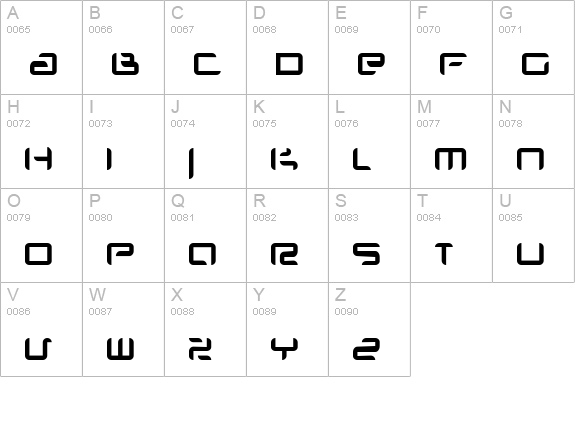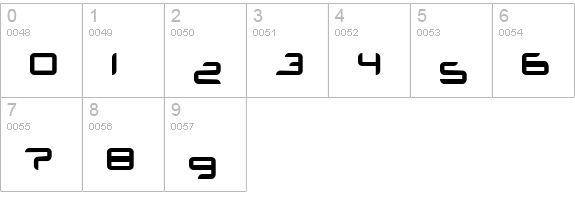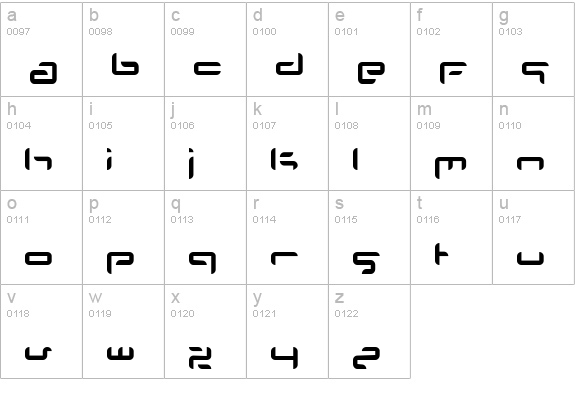
Planet Space Font Details
Introducing the captivating and futuristic Planet Space font - a remarkable typeface that will transport you into the depths of the cosmos. With its sleek and modern design, this font captures the essence of interstellar exploration, pushing the boundaries of typographical innovation. Planet Space font is the perfect choice for any project that aspires to capture the essence of outer space and the limitless possibilities it holds. Whether you're designing a sci-fi movie poster, creating a captivating book cover, or developing a website that showcases the wonders of the universe, this font will elevate your work to new heights. What makes Planet Space font even more extraordinary is that it is freely available to download at FontsMarket.com. Yes, you heard it right - this awe-inspiring font can be yours without any charge. We believe that creativity should be accessible to all, and by offering Planet Space font for free, we hope to empower designers, artists, and enthusiasts to bring their visions to life without any limitations. The carefully crafted and precise letterforms of Planet Space font are a testament to the dedication and expertise of its creators. Every curve and line is meticulously designed to evoke a sense of wonder and curiosity, just like the vast expanse of the universe itself. The clean and minimalist aesthetic of this font ensures that it remains versatile and adaptable to a wide range of design styles. So, embark on a journey through the cosmos with Planet Space font and let your imagination soar to new dimensions. Download this remarkable typeface today from FontsMarket.com and unlock the true potential of your creative endeavors. Explore the universe of possibilities that await you with this extraordinary font, and let it propel your designs to infinity and beyond.